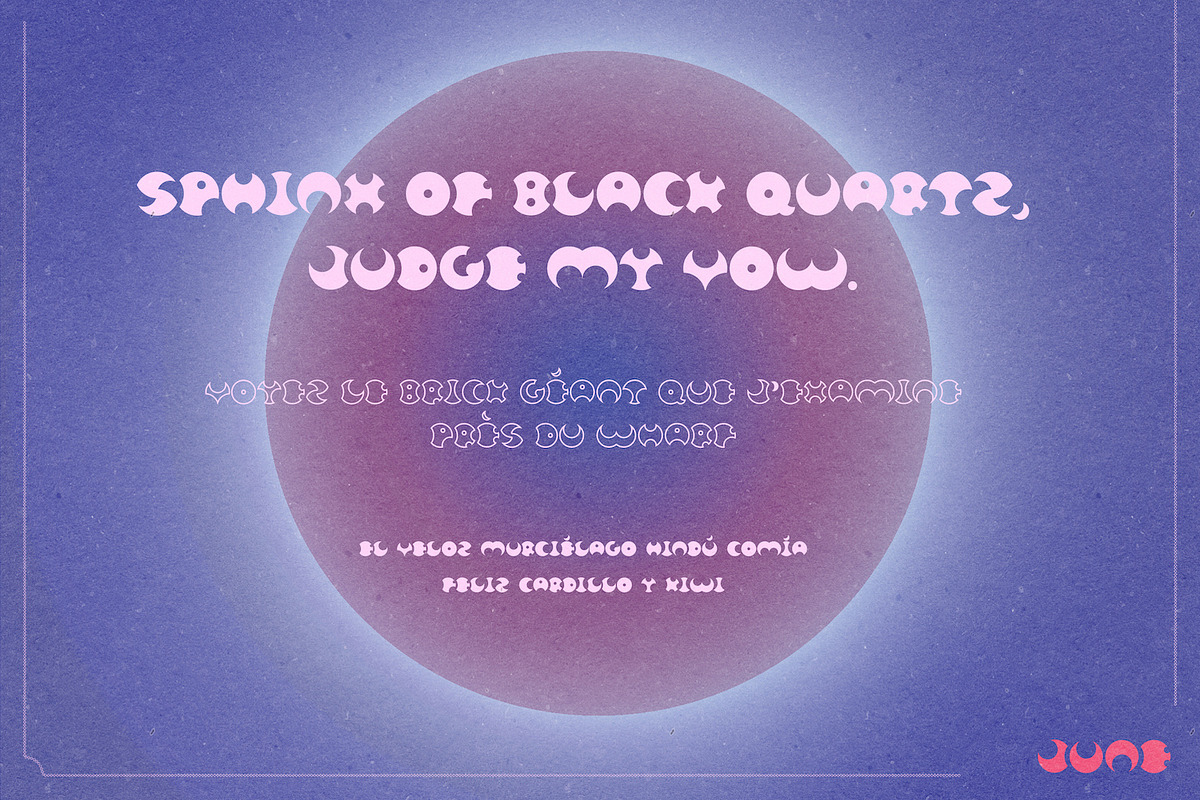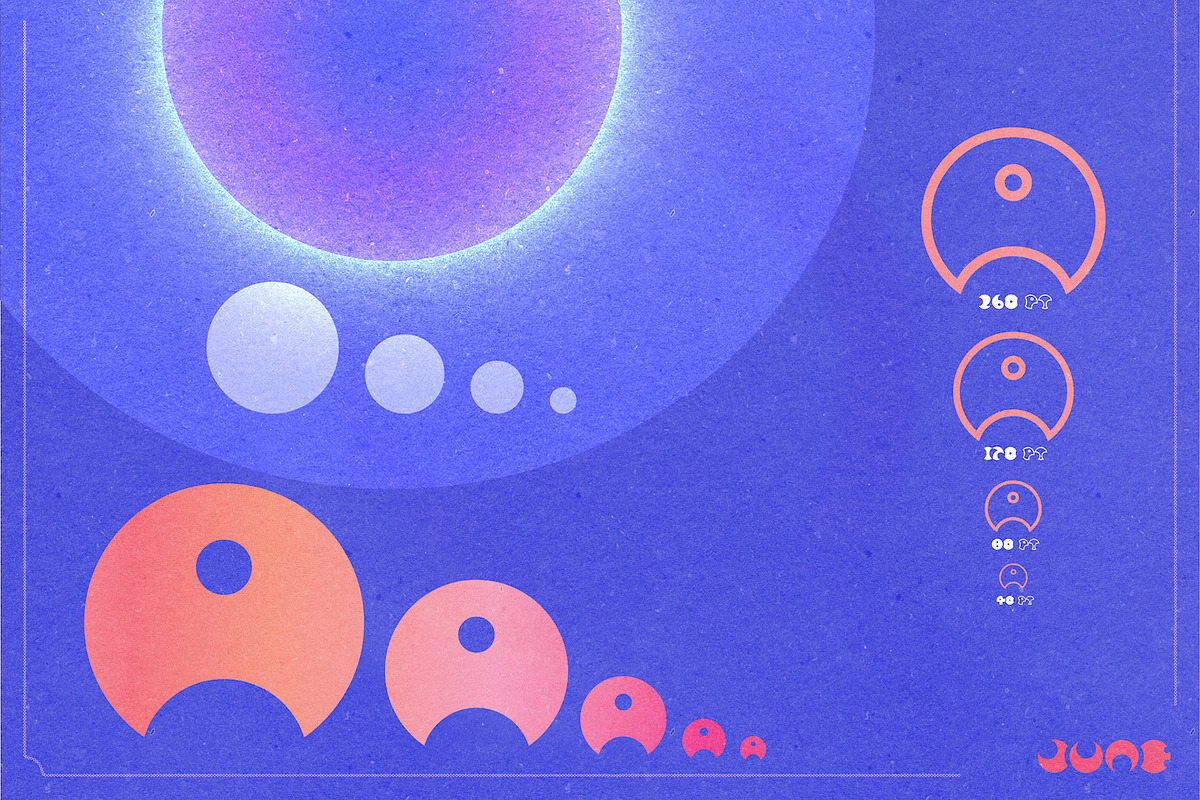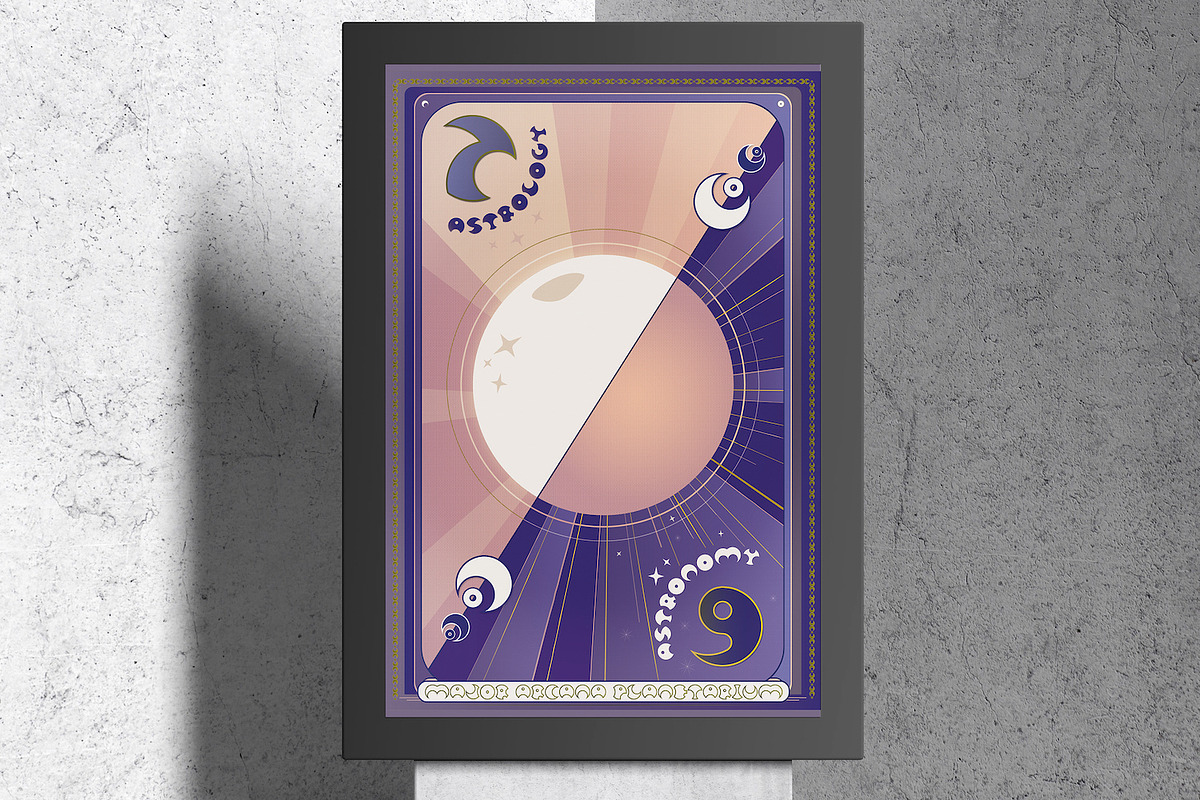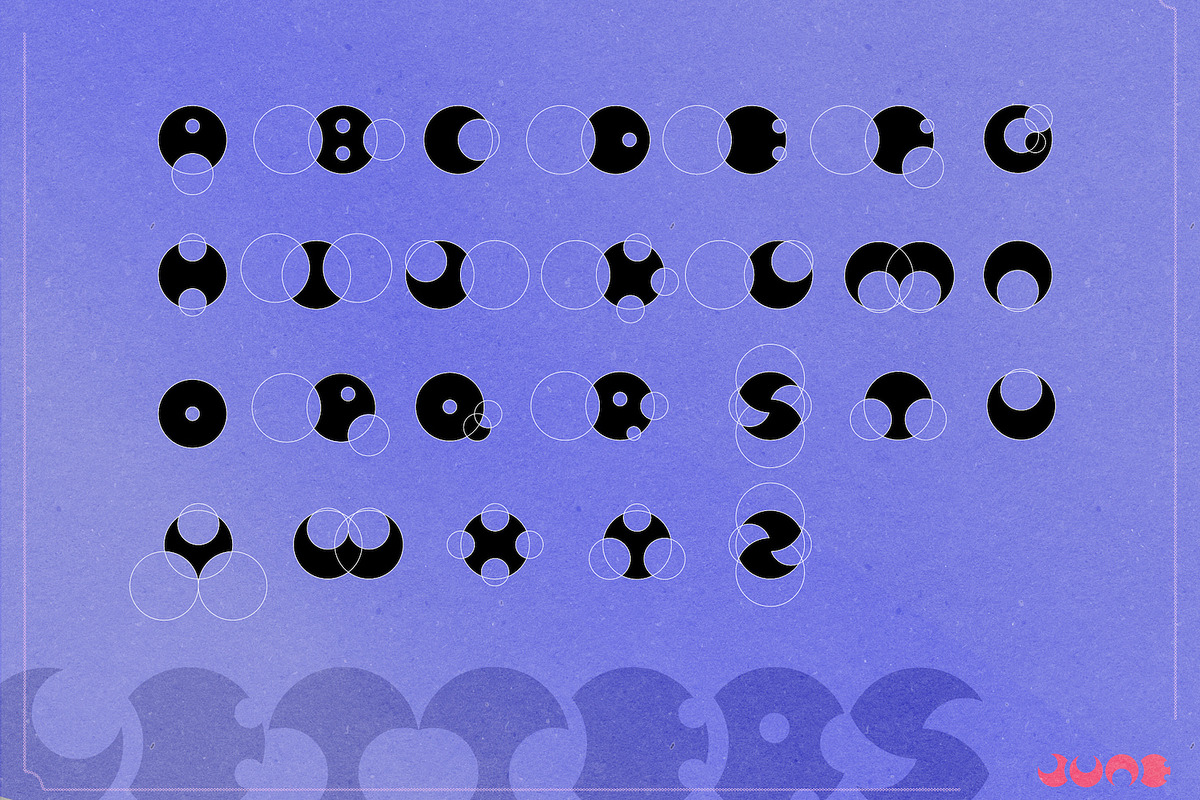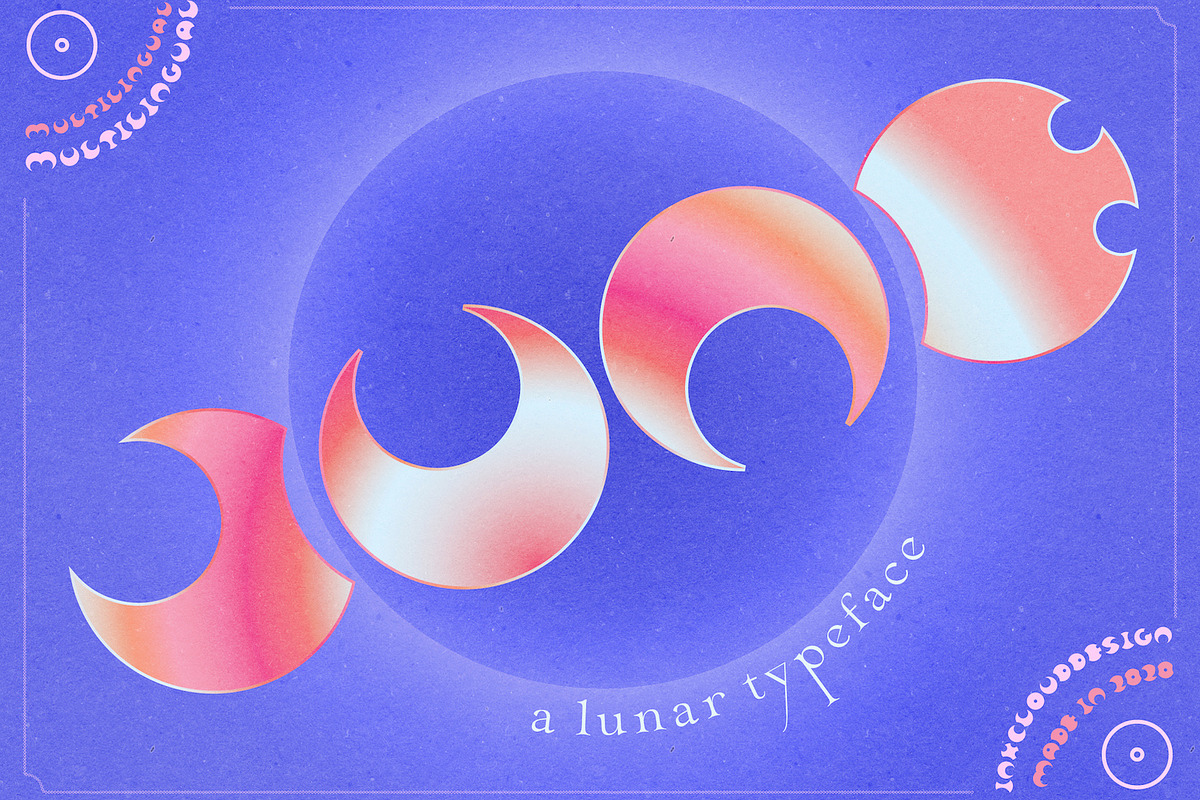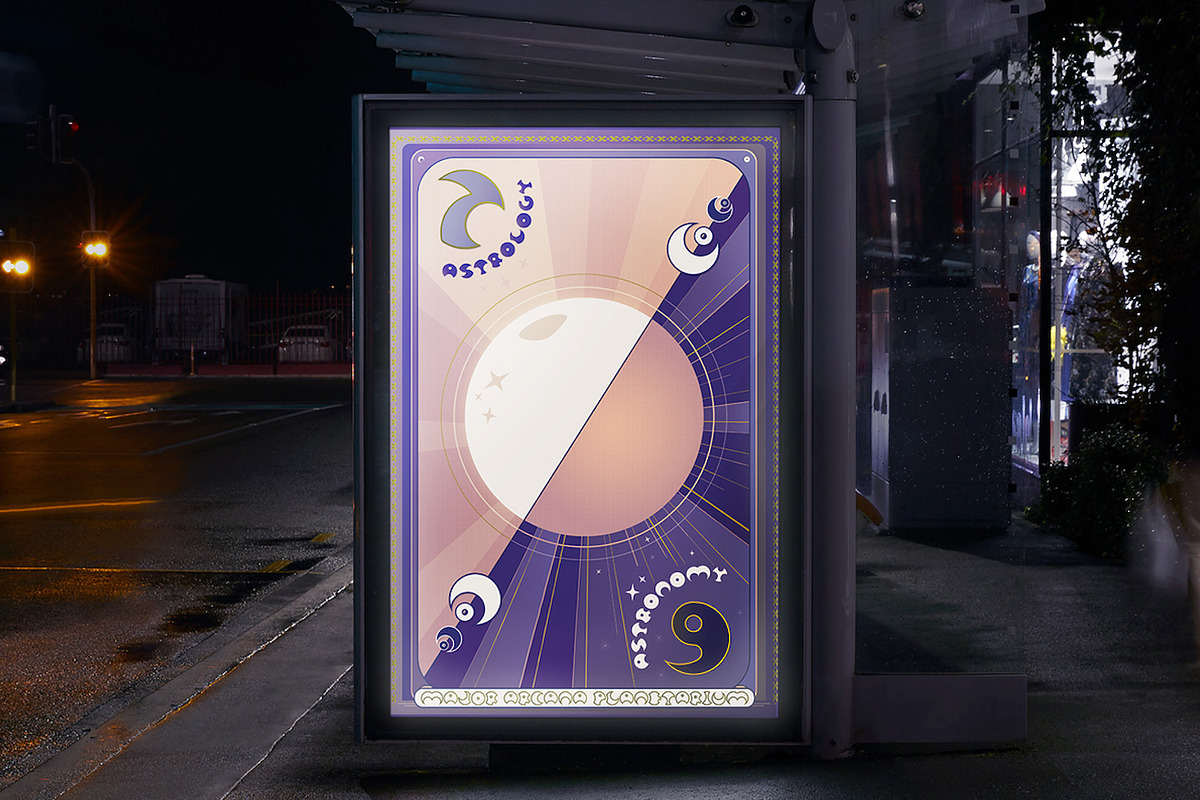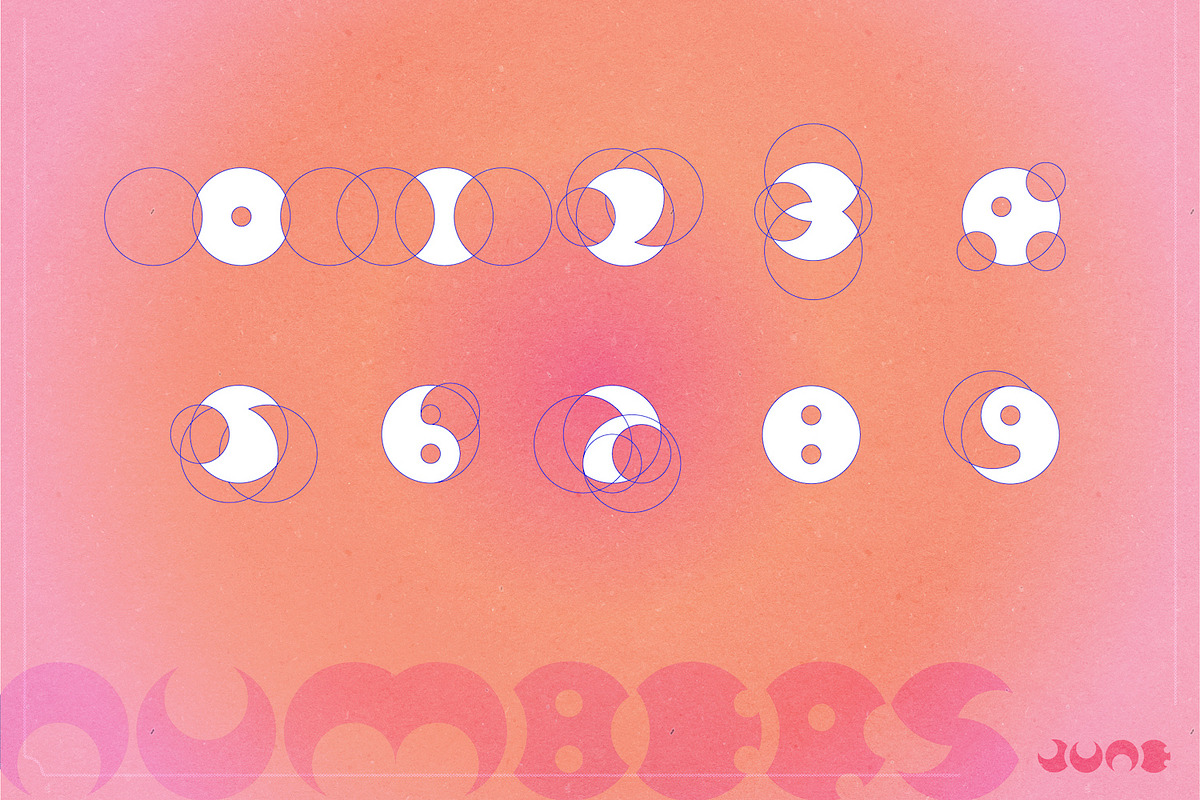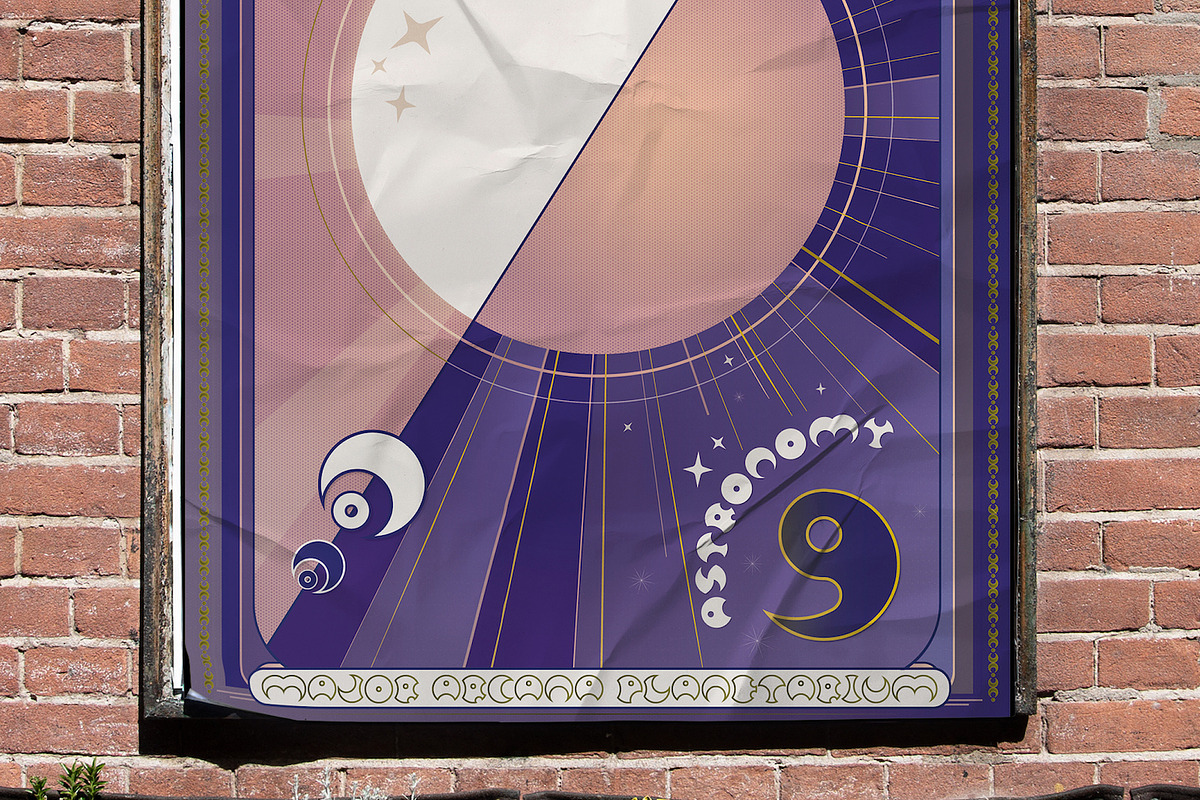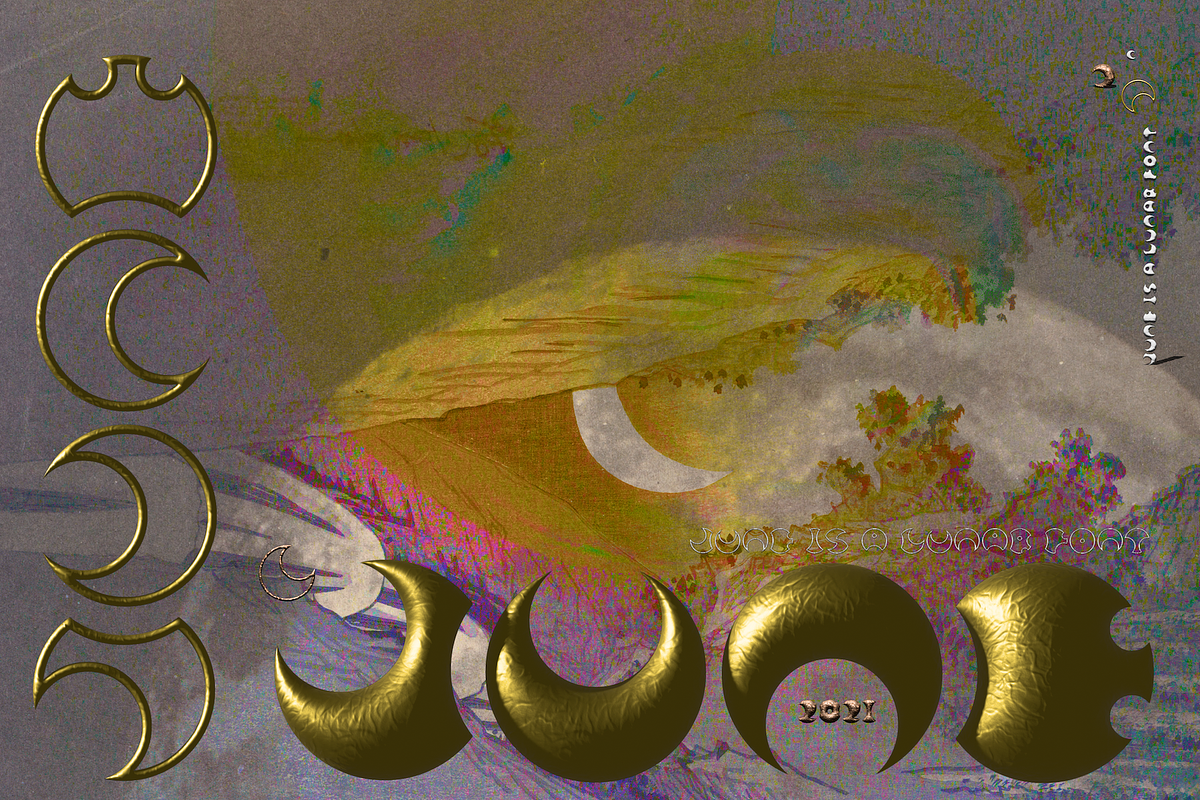
Retro Cyber Lunar Font Moon Typeface
June is a lunar typeface. Each letter is hand-made and consists of simple circles. Its round characters bring warmth and personality to your designs !
This font is available in two formats : OTF and TTF June comes in uppercase and lowercase letters. June includes multilingual characters, as seen on preview images.